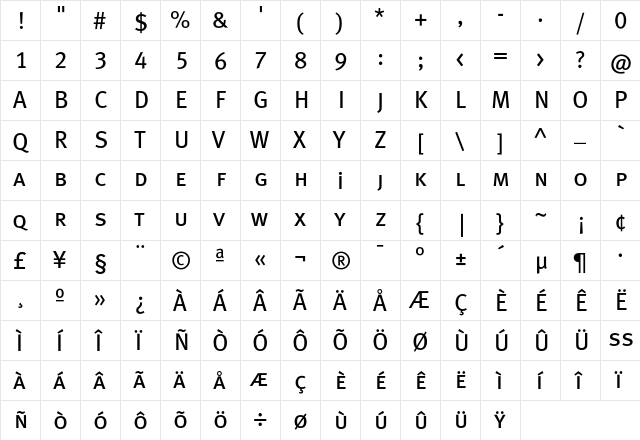
MetaBookTurkLF Caps
Design Context for MetaBookTurkLF Typeface
MetaBookTurkLF offers clean, dependable letterforms without strong stylistic allegiance, making it a practical choice for designers who need flexibility.